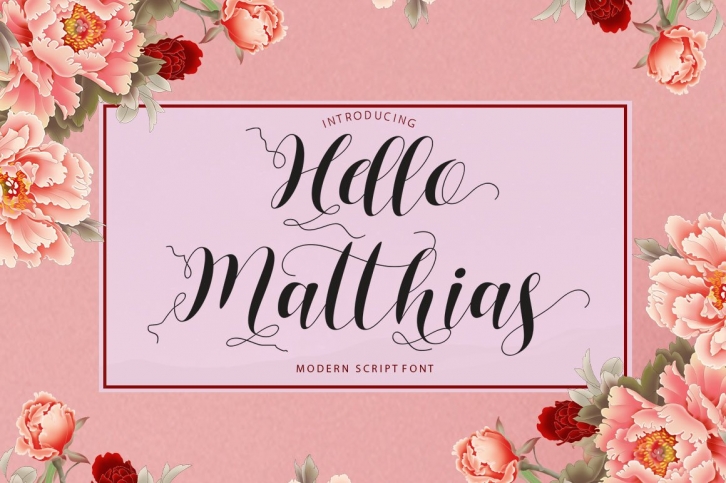
Hello Matthias is a great font that was designed by Shape Studio. Imagine the amount of combinations you can create using this font! The archive is 5.85 MB and it was released on June 4, 2020. Hello Matthias looks beautiful on wedding invitations, greeting cards, logos, posters, labels, t-shirt designs, logos, business cards and is perfect for use in ink or watercolor works, fashion, magazines, packaging and food menus, children's books and more!